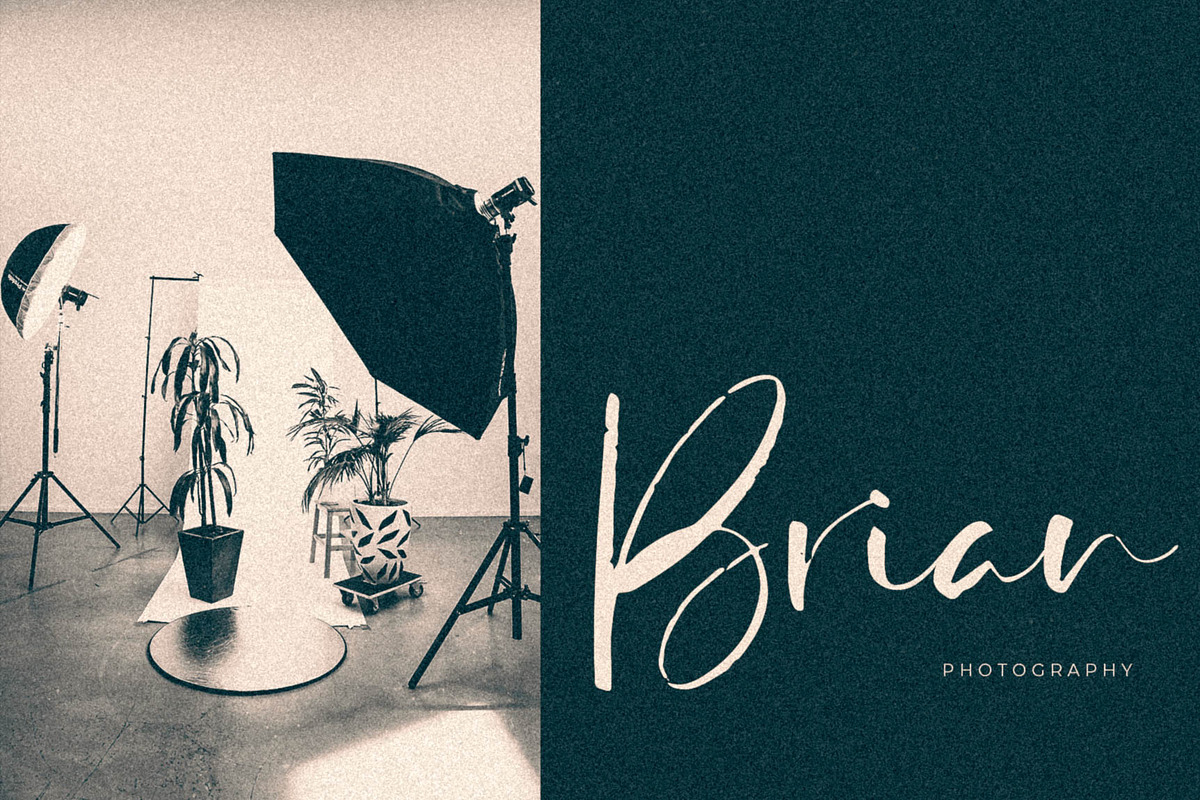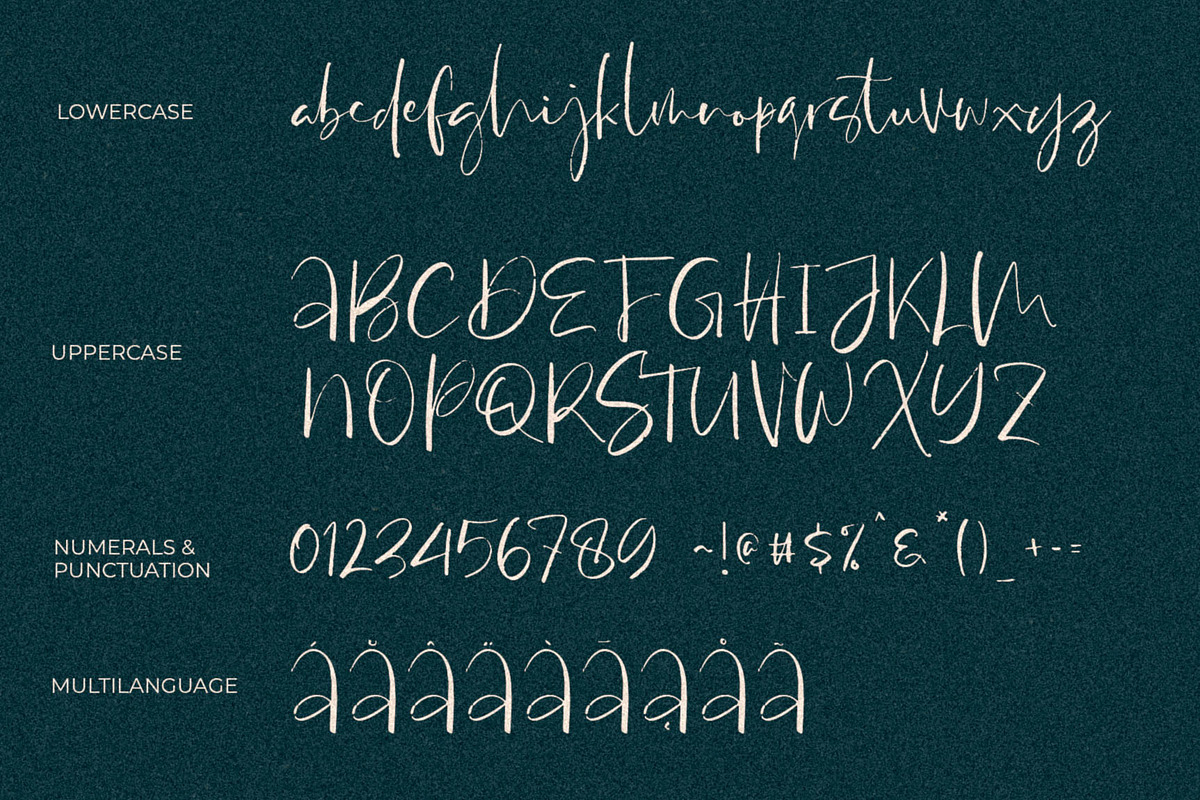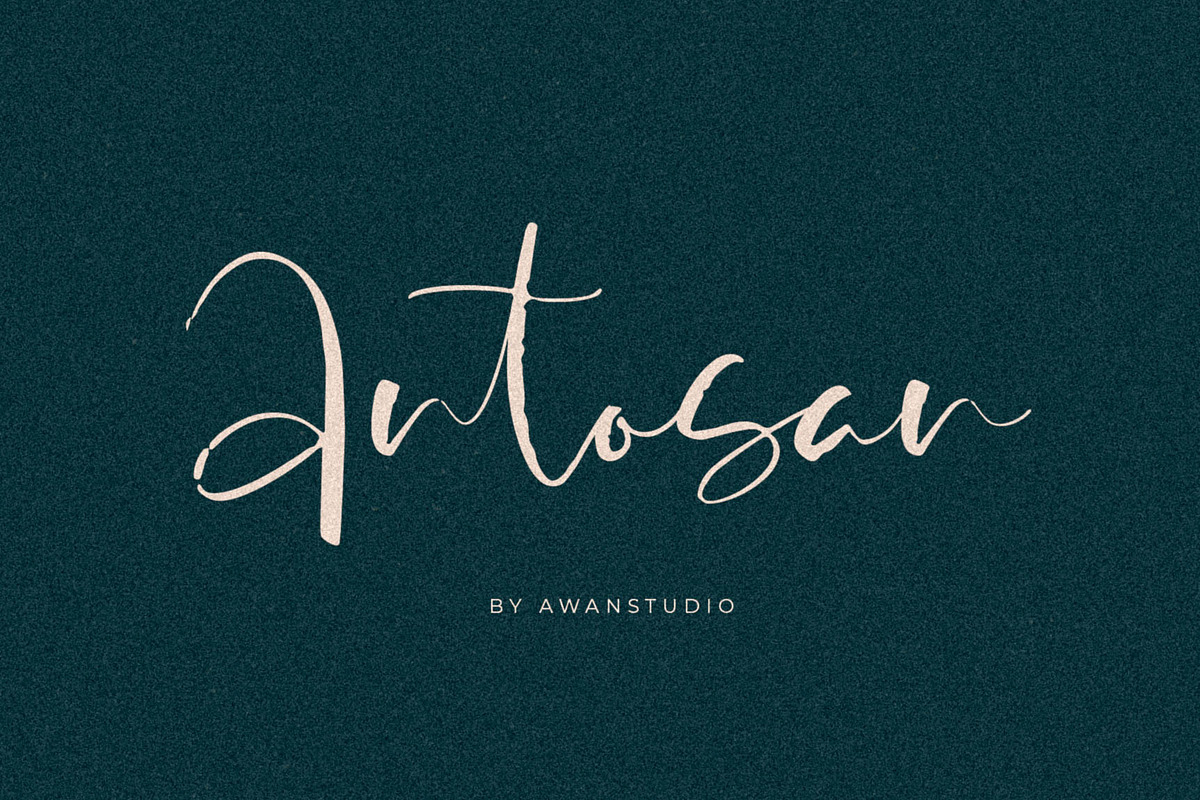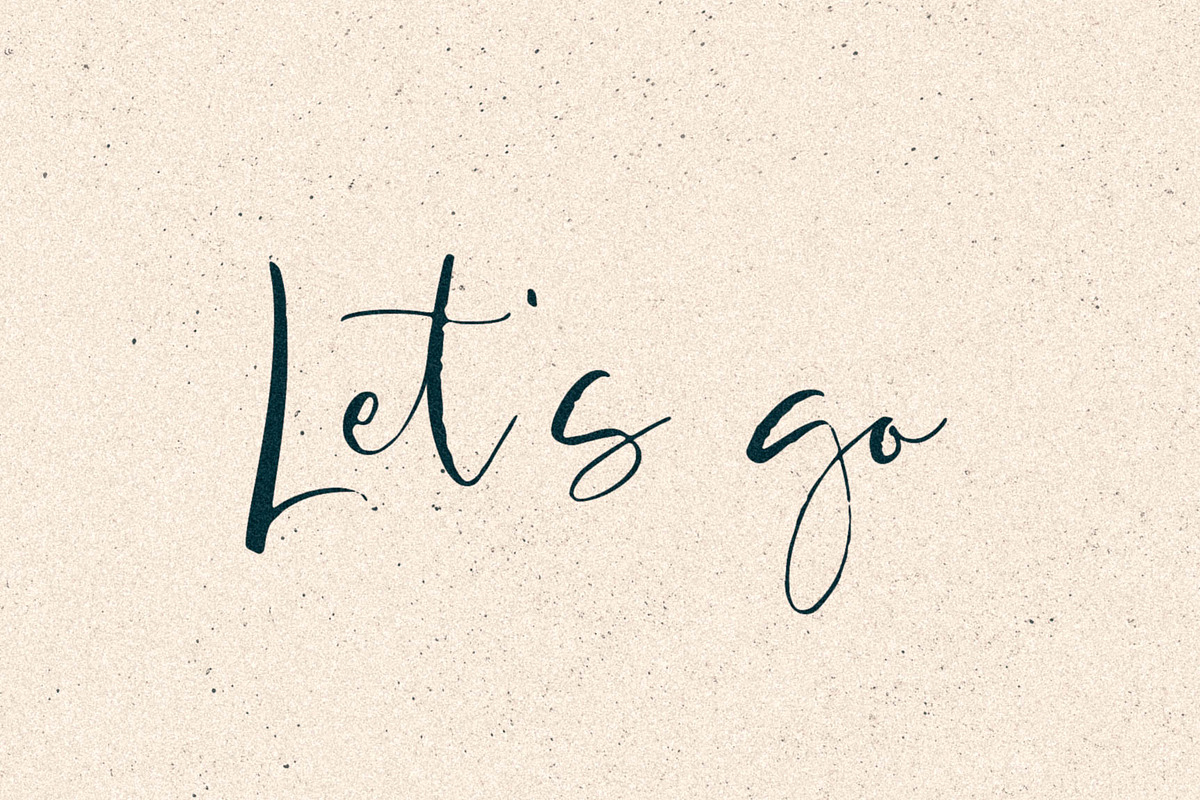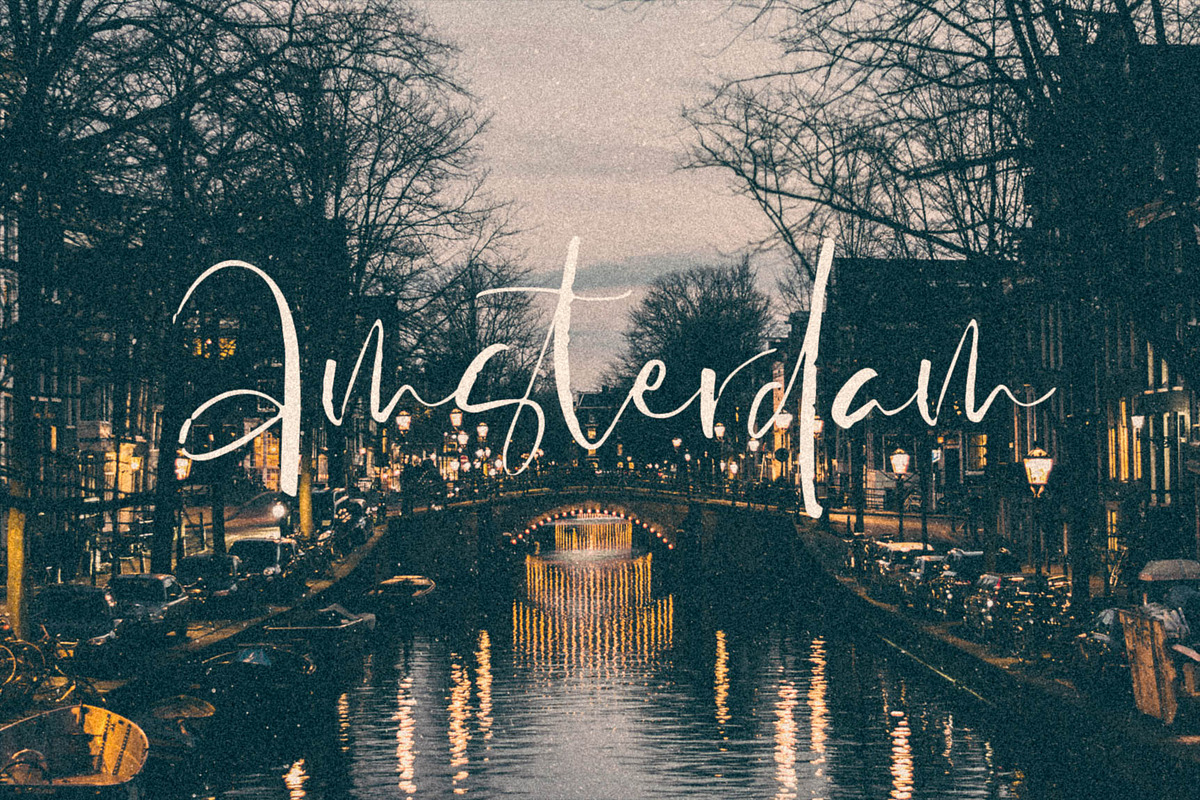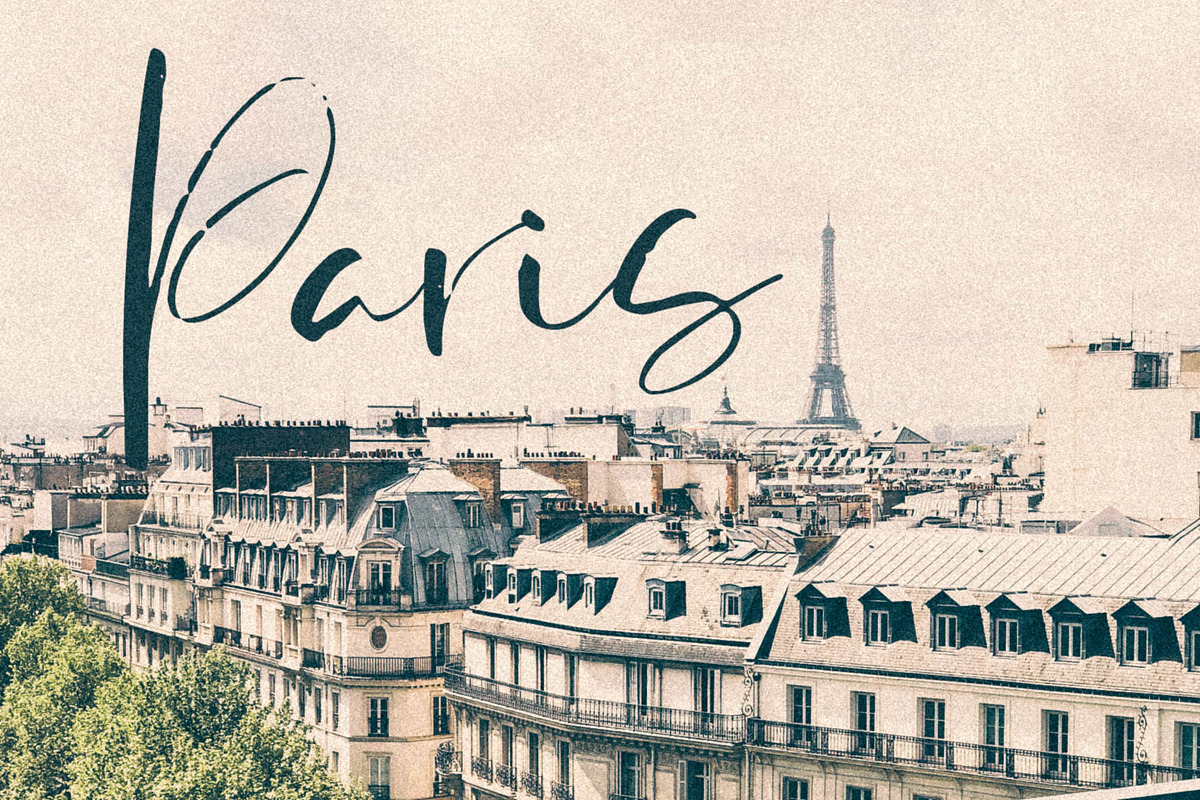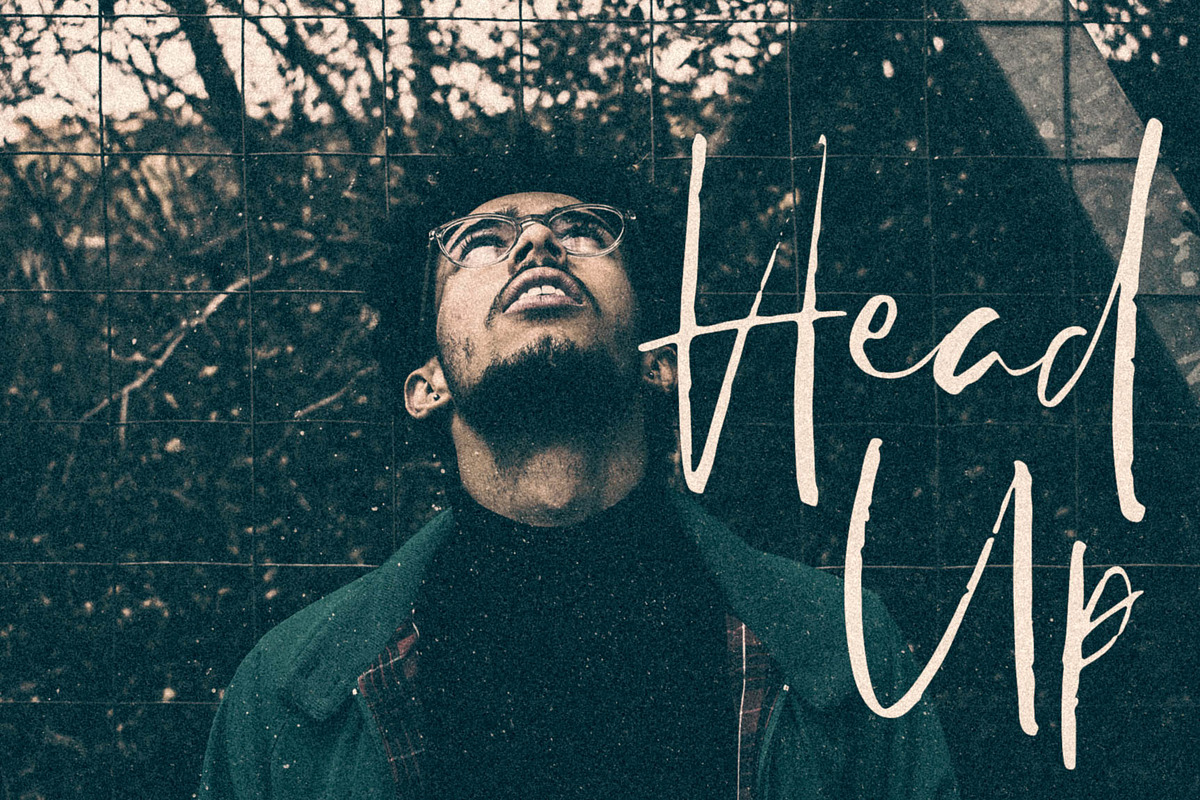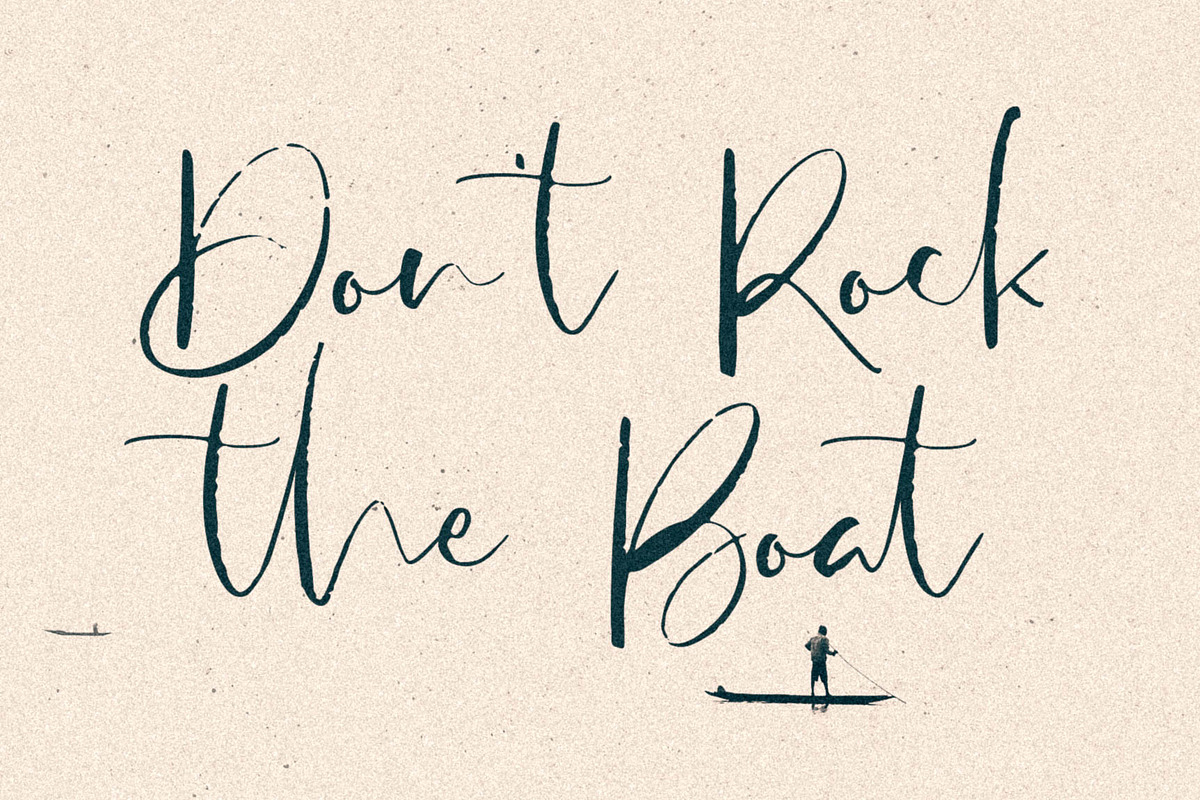
Antosan Script Font
Antosan! It allows you to create stunning and easy hand-lettering in an instant. Ideal for the logo, quotes, wedding, product label/packaging, fashion, letter, advertising, invitation, poster, merchandise, greeting cards, etc
Multilanguage support
Antosan Script Font by Awanstudio fits naturally into Branding, posters, packaging, typography.